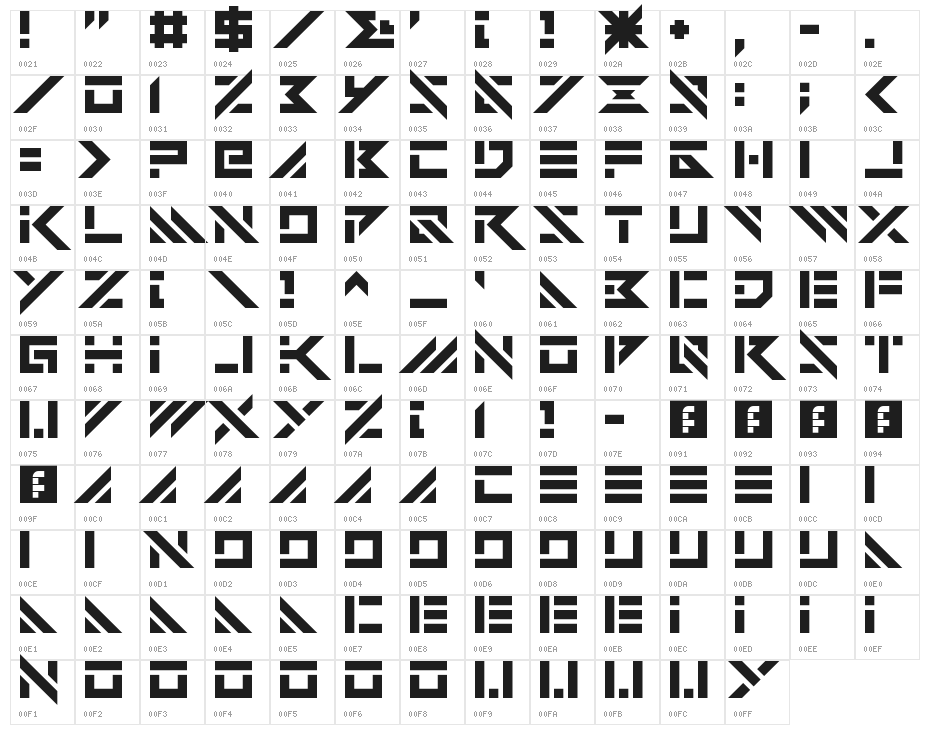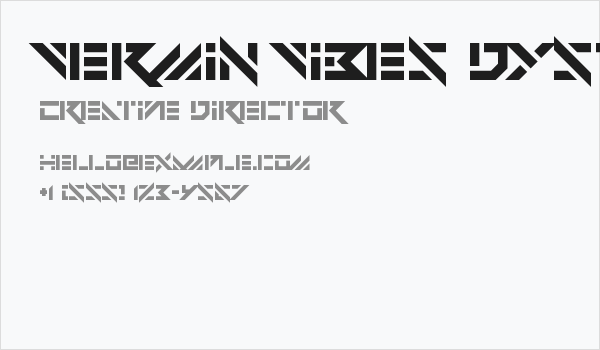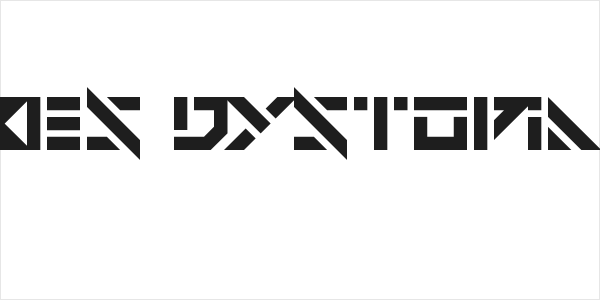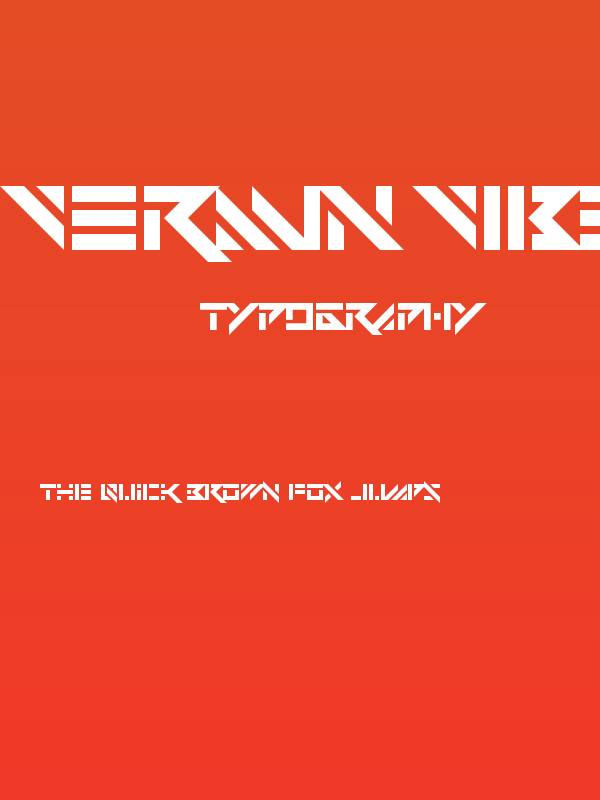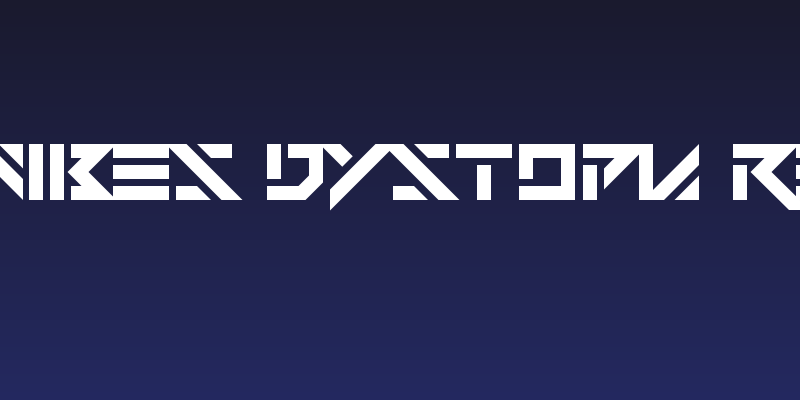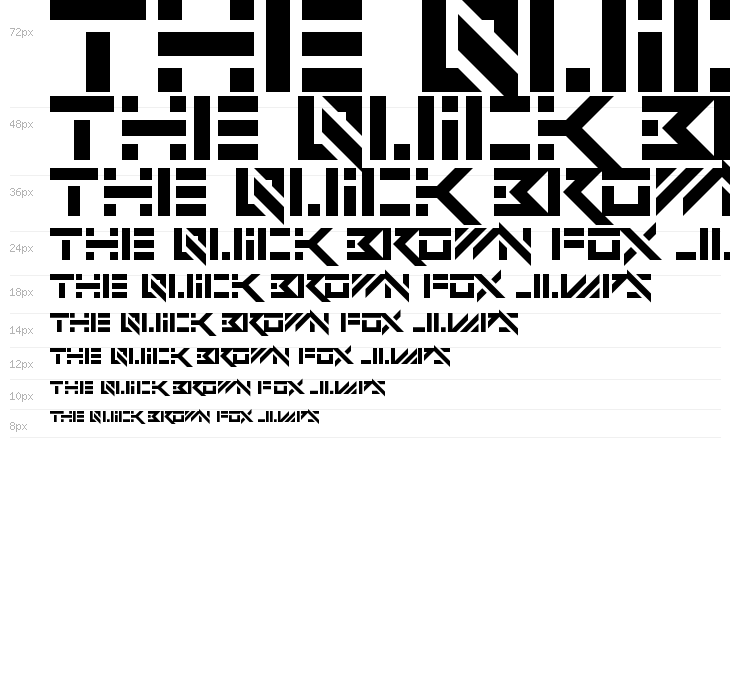
Vermin Vibes Dystopia Regular Font
Vermin Vibes Dystopia Regular Description
This font features a highly stylized, futuristic design with angular and geometric shapes. Each character is composed of sharp lines and bold angles, creating a sense of movement and energy. The letters are distinct and abstract, resembling a digital or cyberpunk aesthetic. The font's unique style makes it stand out, with a strong emphasis on symmetry and form. It is ideal for projects that require a modern and edgy look, such as video game titles, sci-fi movie posters, or tech-related branding. The characters are tightly spaced, enhancing the compact and cohesive appearance of the text.
| Proposed Projects | Ideal for sci-fi themes, video game titles, tech branding, and futuristic designs. |